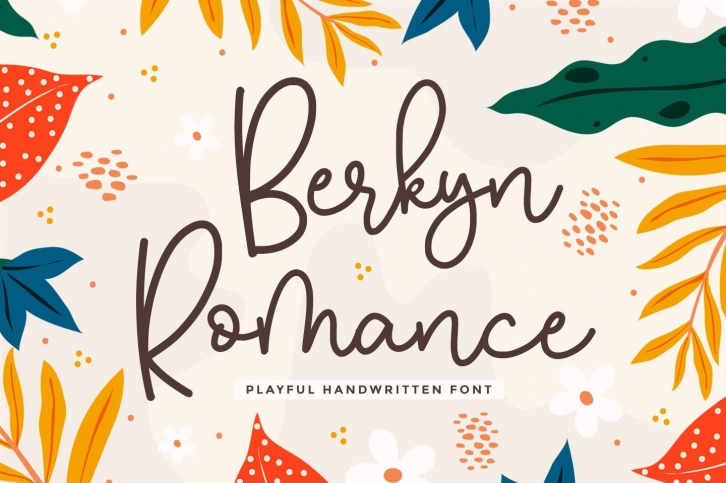
Berkyn Romance - Monoline Script Font Download
Berkyn Romance is a great font that was designed by Creakokun. Imagine the amount of combinations you can create using this font! The archive is 9.96 MB and it was released on June 21, 2020. Berkyn Romance looks beautiful on wedding invitations, greeting cards, logos, posters, labels, t-shirt designs, logos, business cards and is perfect for use in ink or watercolor works, fashion, magazines, packaging and food menus, children's books and more!